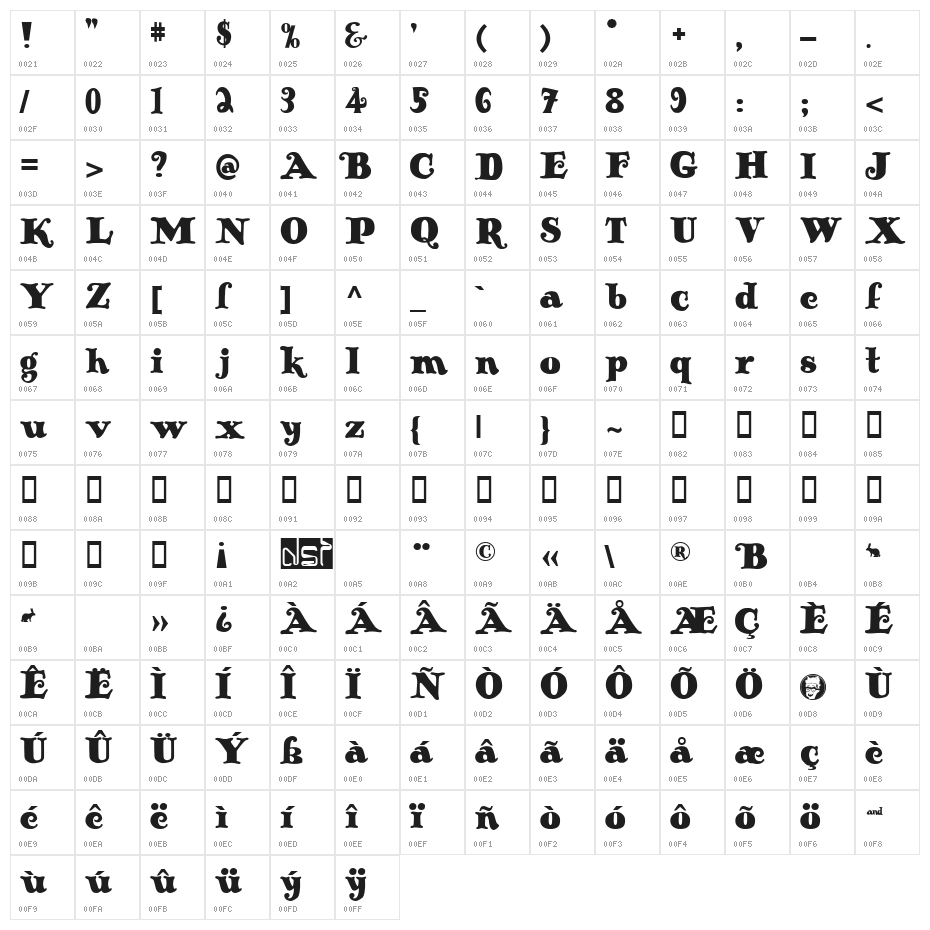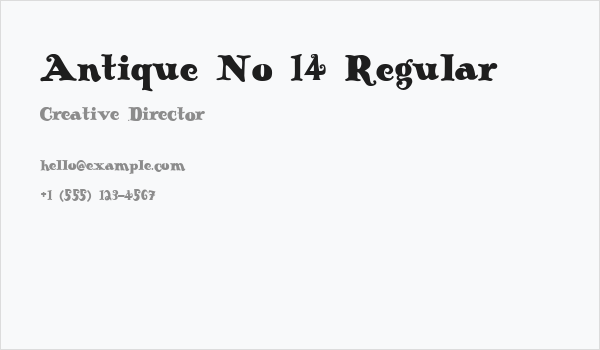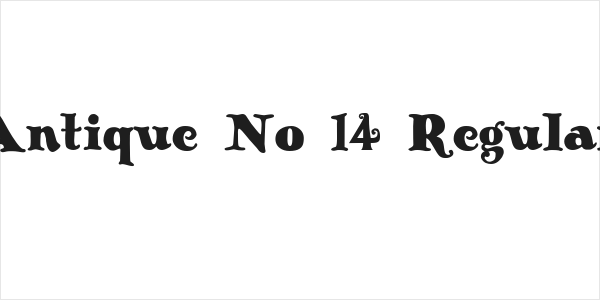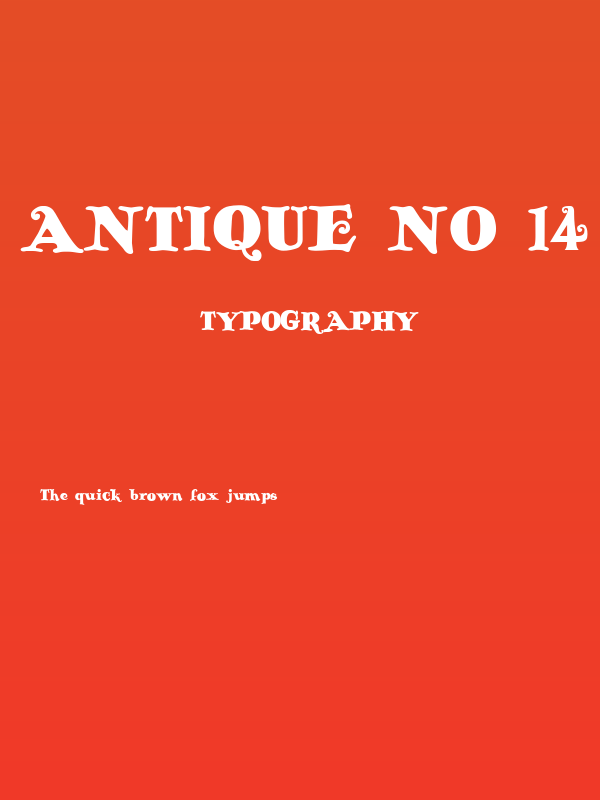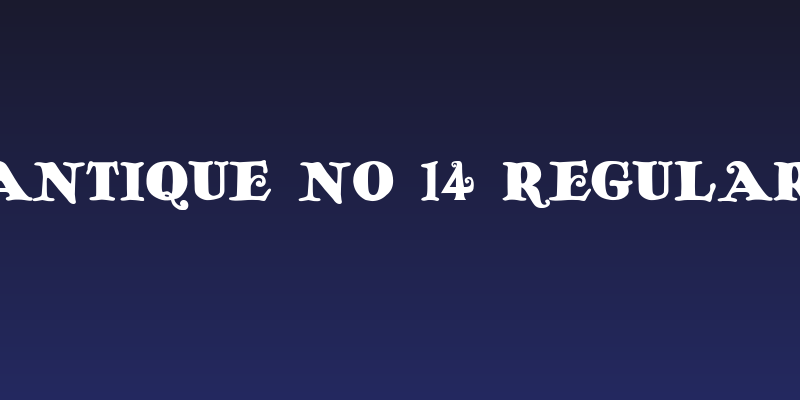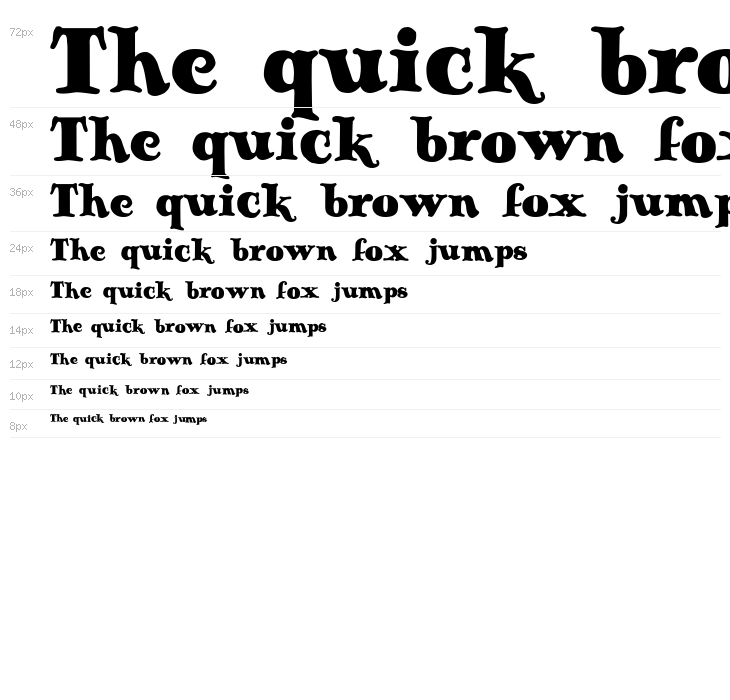
Antique No 14 Regular Font
Antique No 14 Regular Description
This font features a bold and decorative style with a vintage flair. The uppercase letters are characterized by their thick strokes and unique serifs, giving them a strong presence. The lowercase letters maintain a consistent style, with rounded edges and a playful yet classic look. Numbers are equally bold, with distinct curves and a sense of uniformity. Special characters are designed to complement the overall aesthetic, making them suitable for various creative applications. The font's design is reminiscent of old-fashioned signage or posters, providing a nostalgic yet timeless appeal.
| Proposed Projects | Ideal for vintage-themed posters, signage, branding, and creative projects requiring a bold statement. |